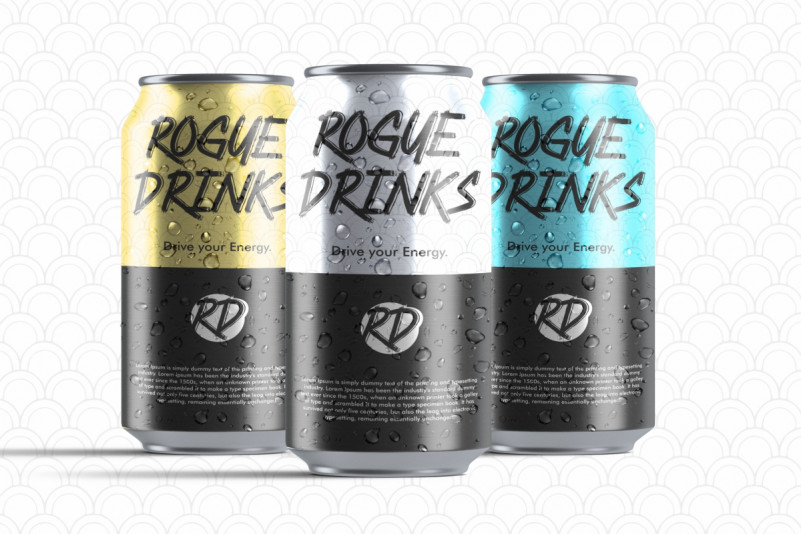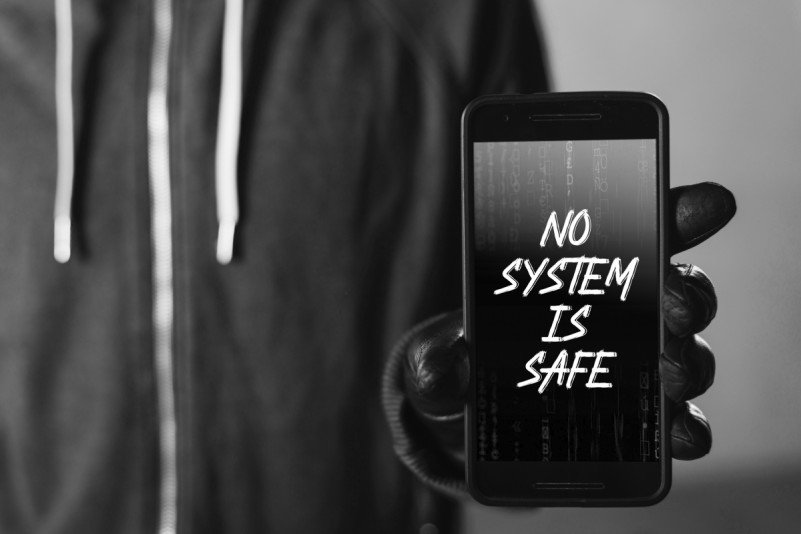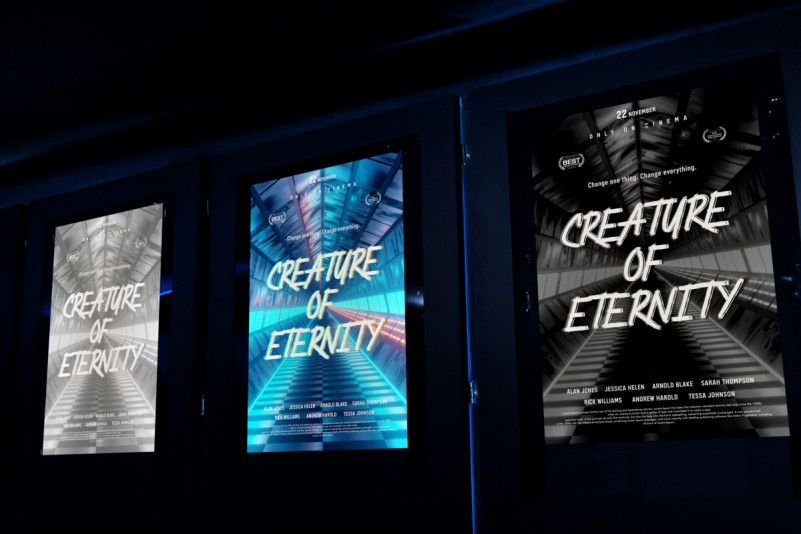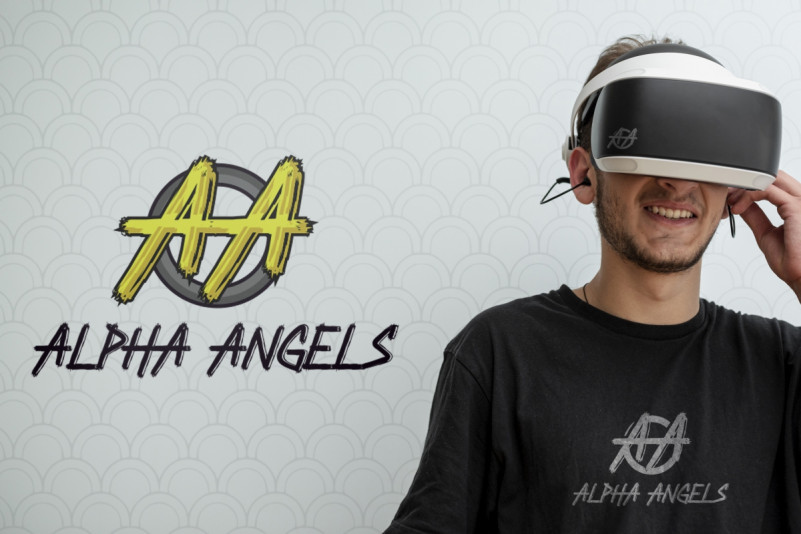
Blackhack Font
Blackhack Display Font
This font is a unique brush with rough edge effect. Blackhack will be awesome for headlines, advertising, product, packaging, promotion, tittle etc. This font is crafted carefully in every its single letter so it is meant to emulate natural brush lettering with perfect for head-turning statements and eye-catching look!
Blackhack Display Font includes full set of Uppercase and Lowercase Basic Characters, Numerals and Punctuation. Also it contains ligatures to make it flowless set font characters to perfectly make awesome look that add more aesthetic to perfect your extraordinary project.